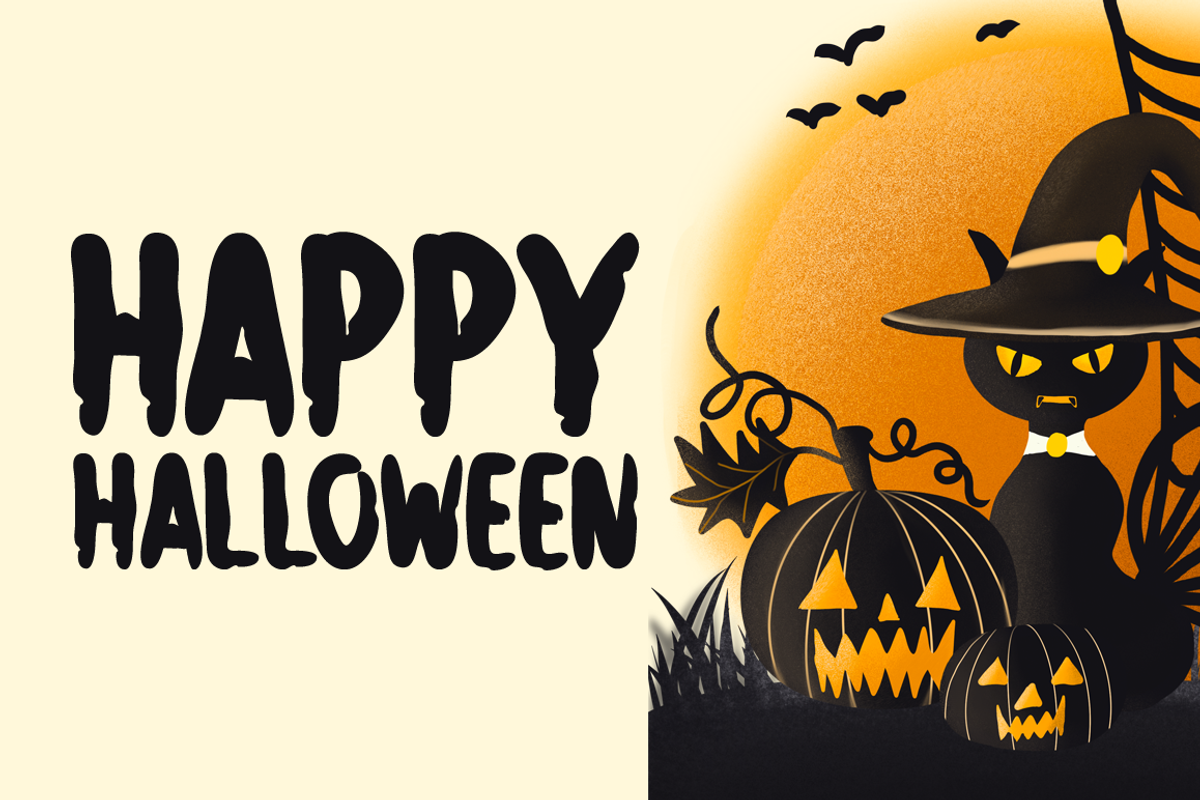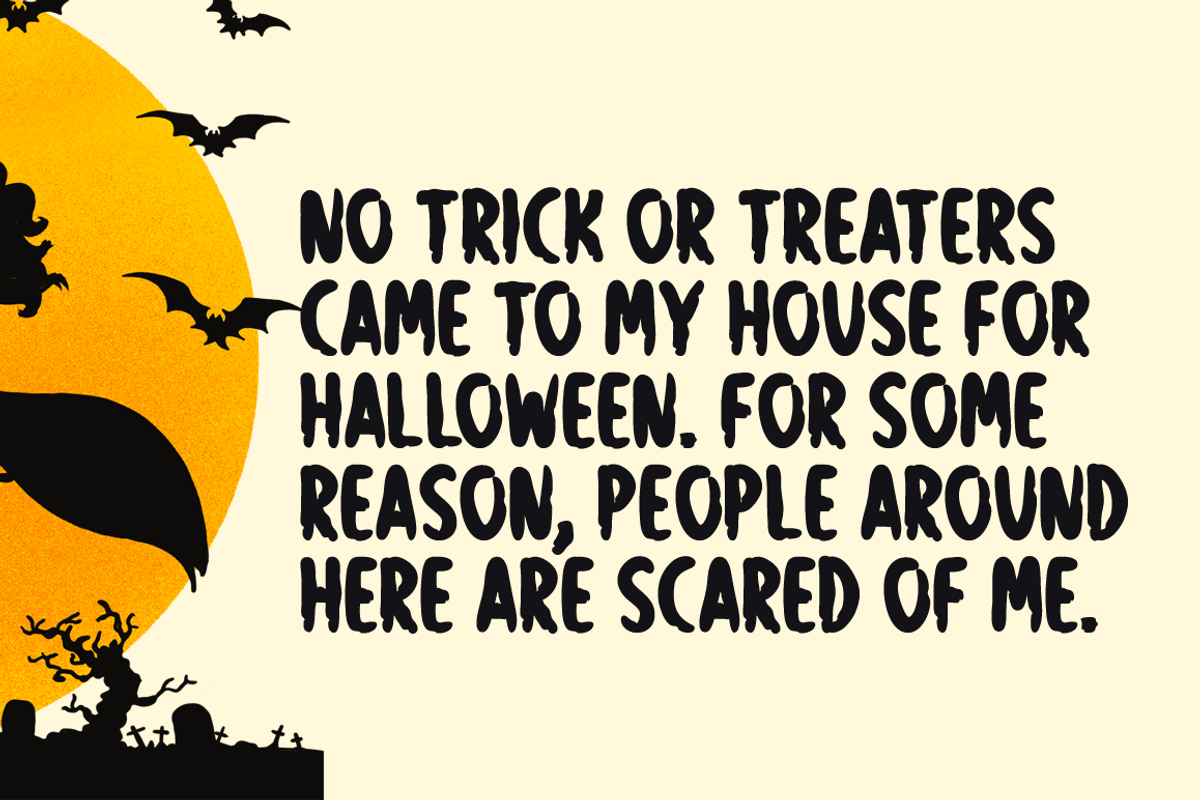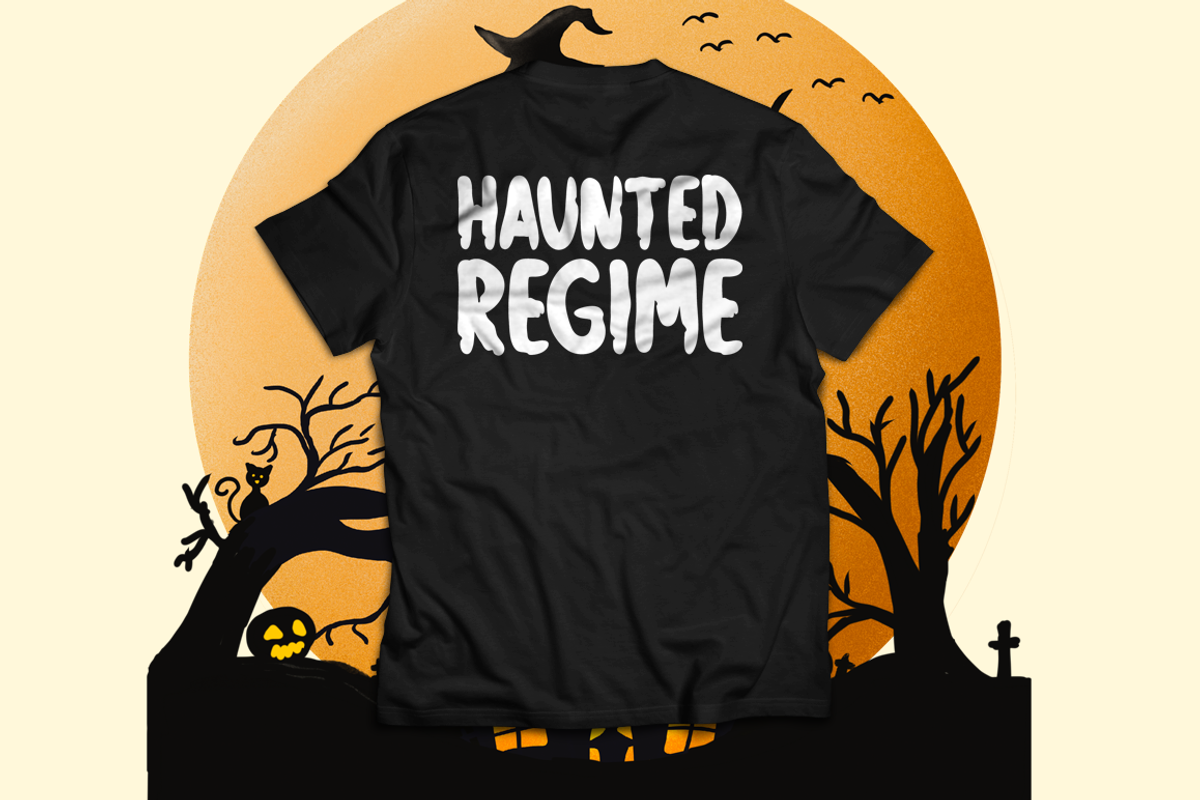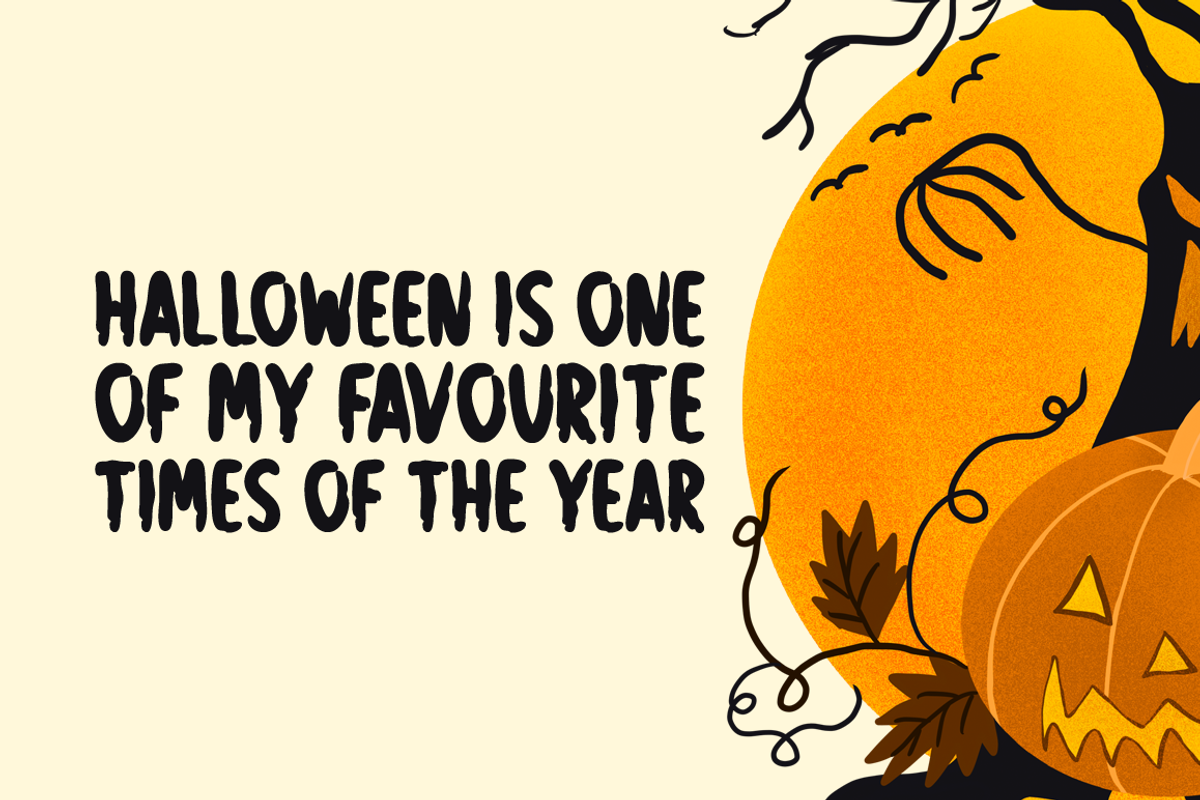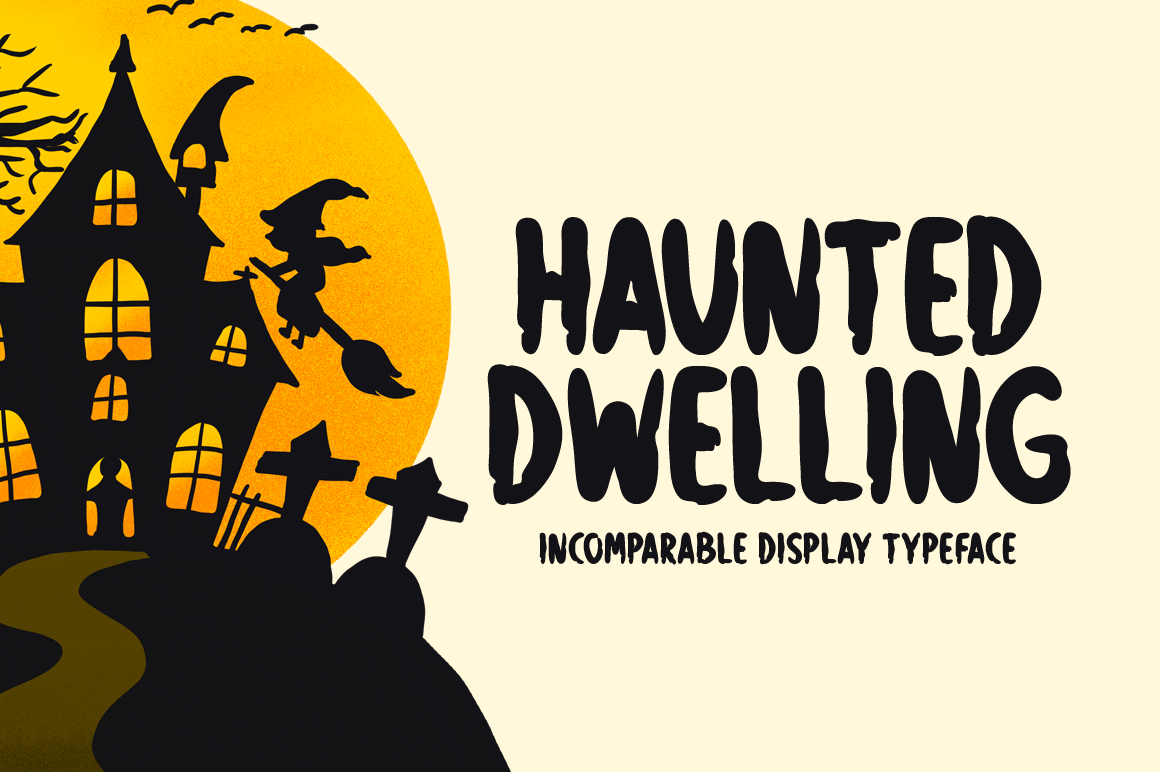
Haunted Dwelling Typeface
Haunted Dwelling!
Haunted Dwelling is a brand new display font. It is perfect for logos, t-shirts, papers, print designs, website headers, photo frames, flyers, music covers, posters, image sliders, and much more.